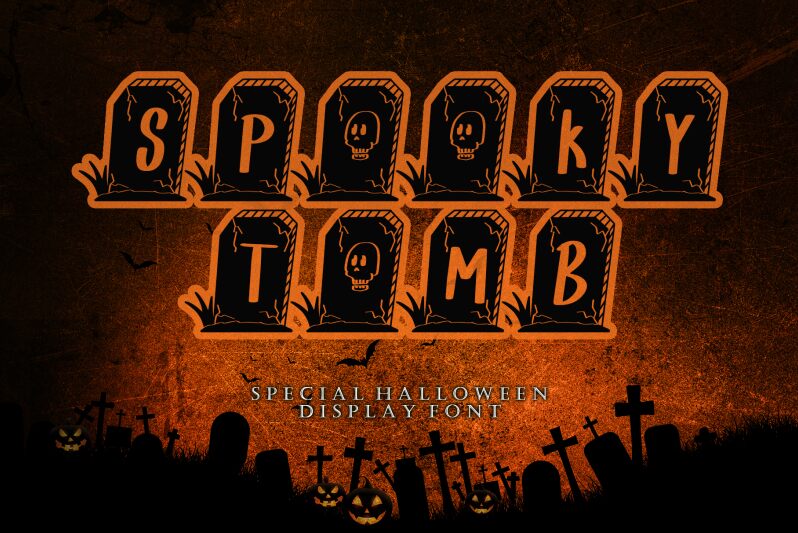
Spooky Tomb font by Annisa Afni of Tuinsstudio is a decorative Halloween themed display font. The dark and ominous script features condensed rounded letters with torn paper edges, many bats, gothic details, and other thematic elements. While definitely spooky and haunted, the typeface preserves a luxurious vintage inspired vibe which adds to the mix of feelings evoked. This unique creation is most suitable for large scale projects that will make each detail stand out.